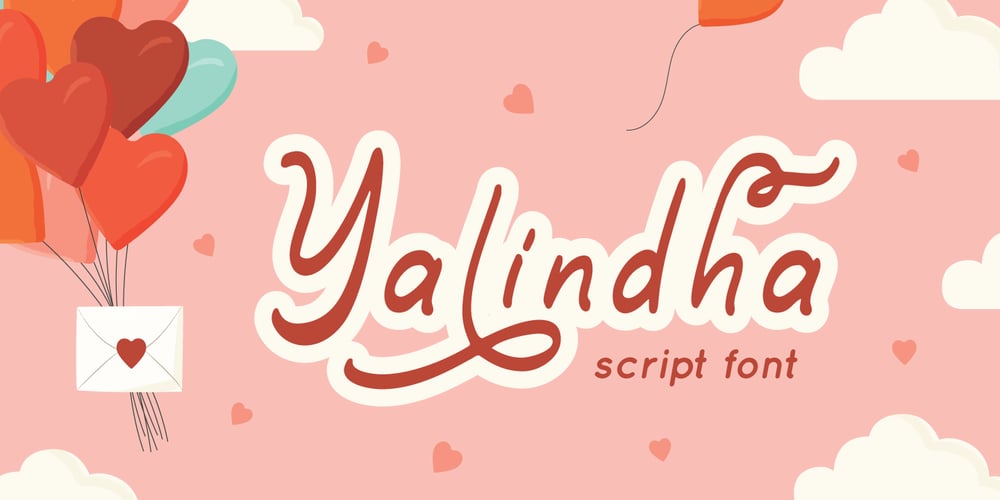
Yalindha Font Family was designed by Fadli Ramadhan Iskandar and published by Attype Studio. Yalindha contains 1 styles and family package options. Yalindha is lovely script font with swash on ending word. This font perfect for valentine & wedding theme design.Combine it with Tallove ending swash & Alternates Character to make perfect design for yor projects. Yalindha perfect for valentine promotion, wedding invitation, branding, logo, invitation, stationery, social media post, product packaging, merchandise, blog design, game titles, cute style design, Book/Cover Title and more.What’s Included :- Yalindha Font- Multilingual Support —Hope you enjoy with our font!Attype Studio